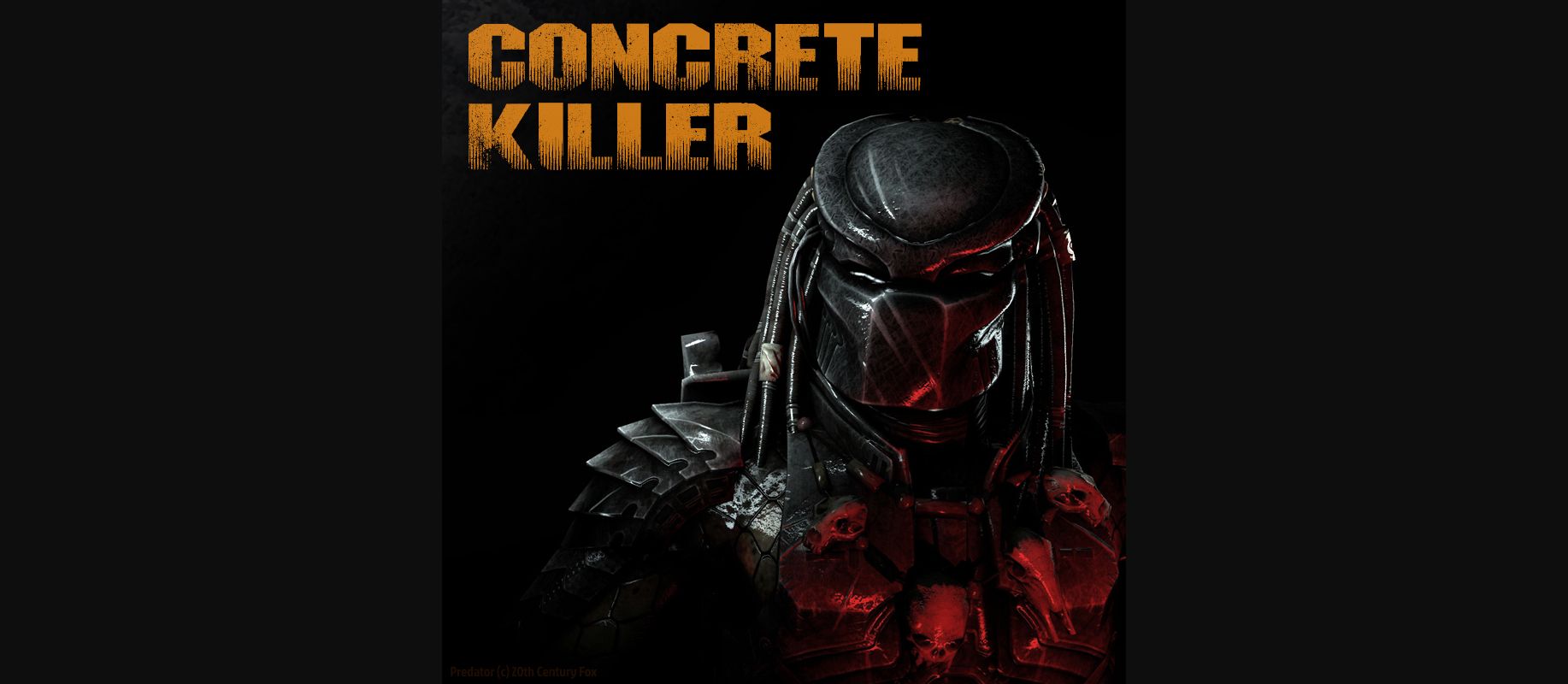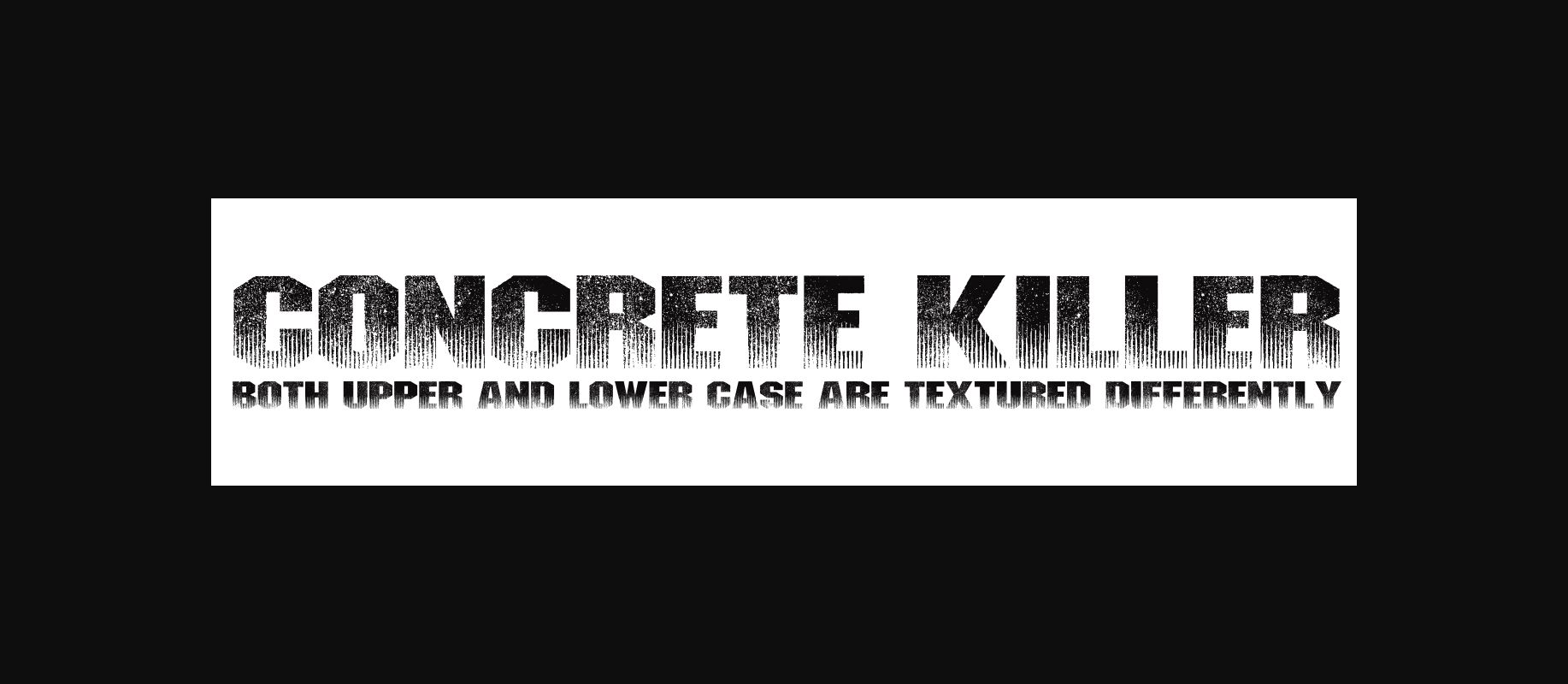
Concrete Killer Font
About Concrete Killer Font
Concrete Killer is a distressed font, an adaptable decorative font for projects that need that post-apocalyptic grunge vibe. This font has tons of texture, and comes in blocky caps.